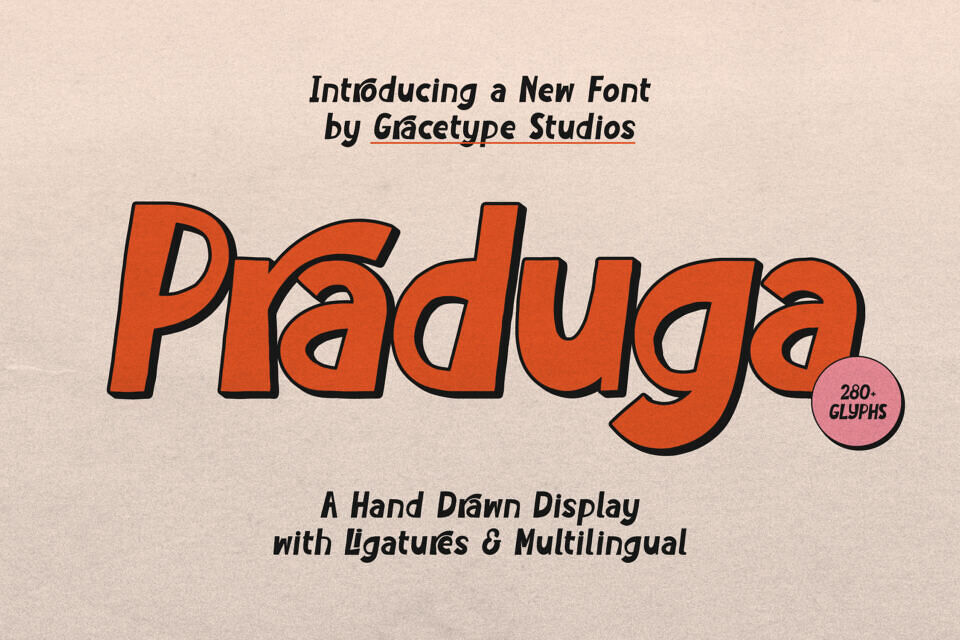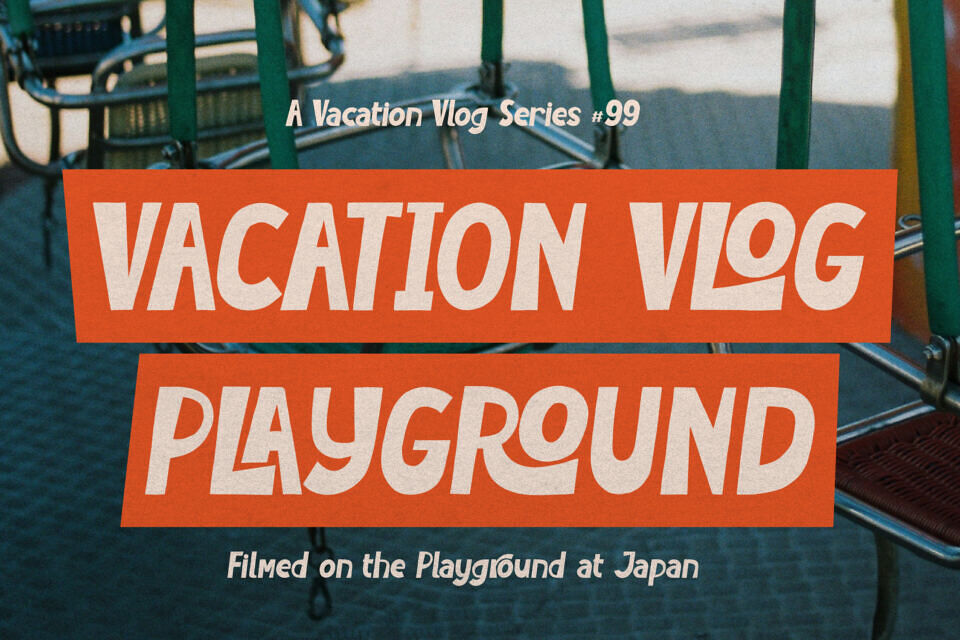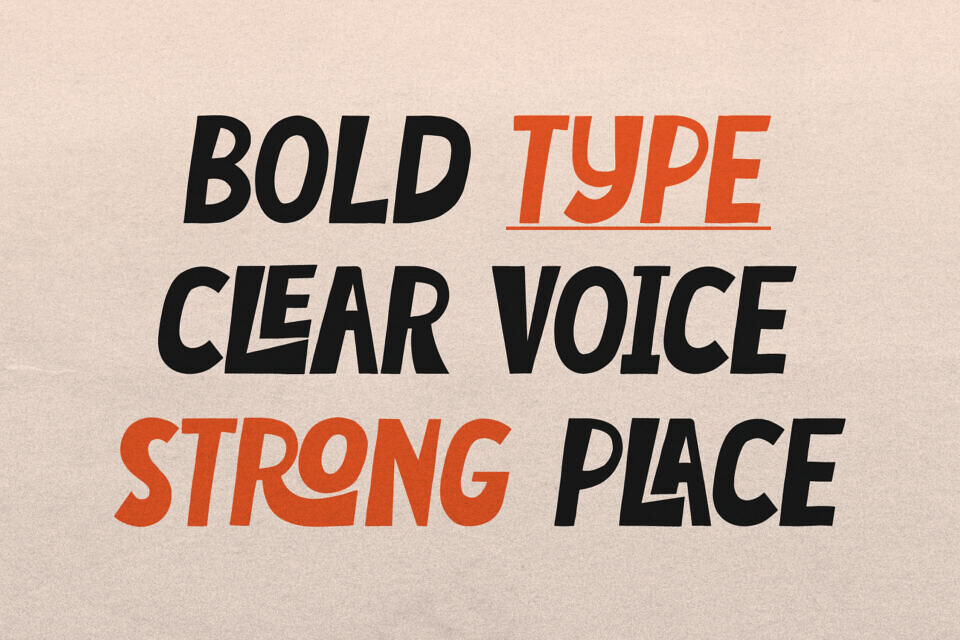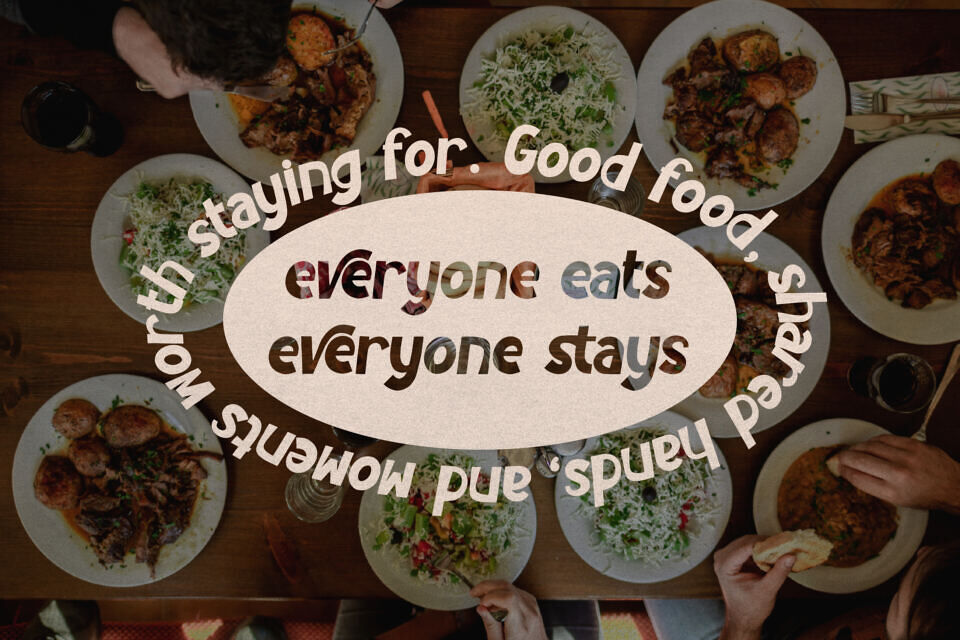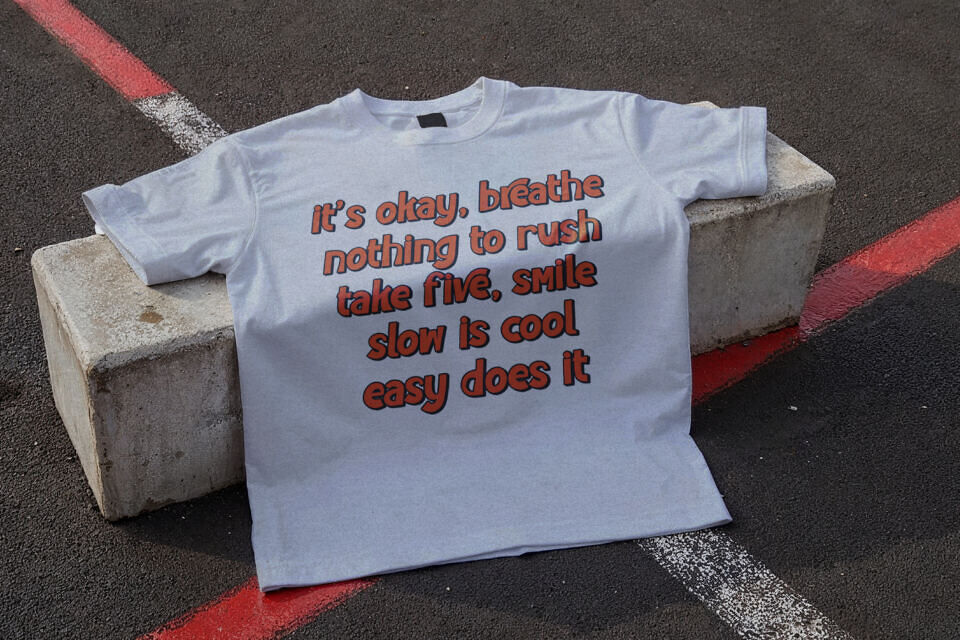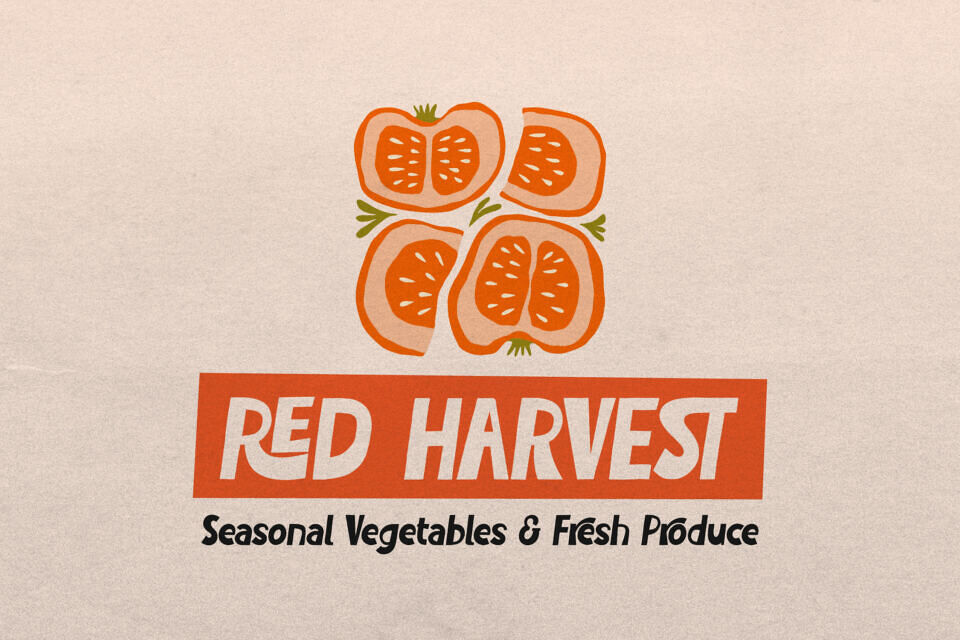
Praduga Font
Praduga is a bold, energetic hand-drawn display font that celebrates a nostalgic, retro aesthetic with a modern, clean execution. The typeface features heavy, italicized letterforms with a subtle 3D shadow effect that gives the text a sense of depth and forward motion.
Characterized by its chunky proportions and smooth, rounded curves, the font includes a comprehensive set of over 280+ glyphs, featuring unique ligatures and extensive multilingual support.
This typeface is an exceptional choice for vintage-inspired poster art, bold editorial headlines, streetwear branding, and dynamic logo designs that require a soulful, handcrafted personality.